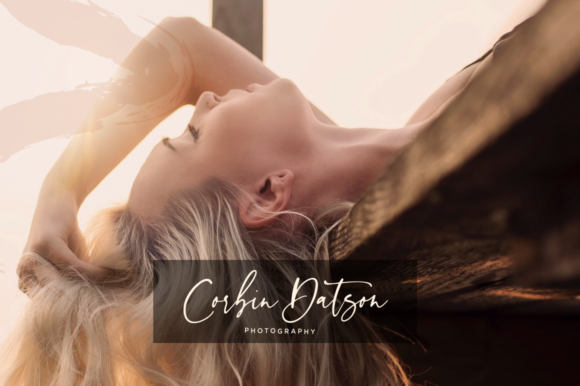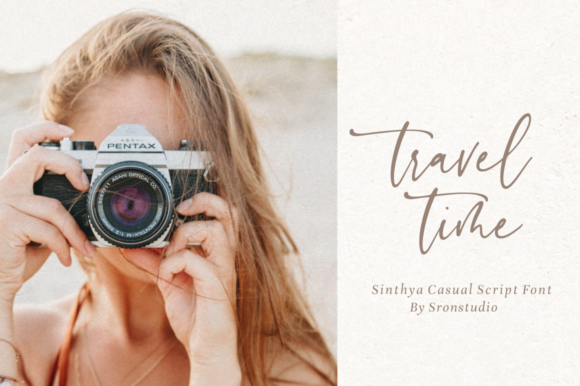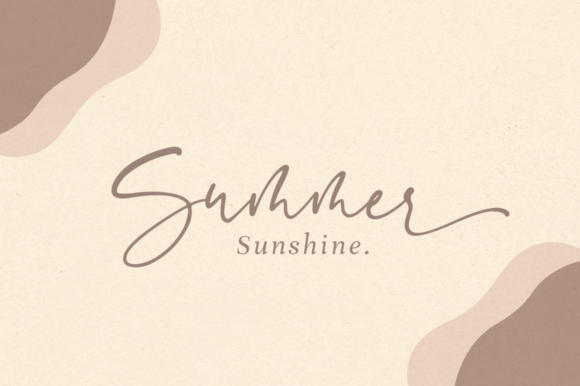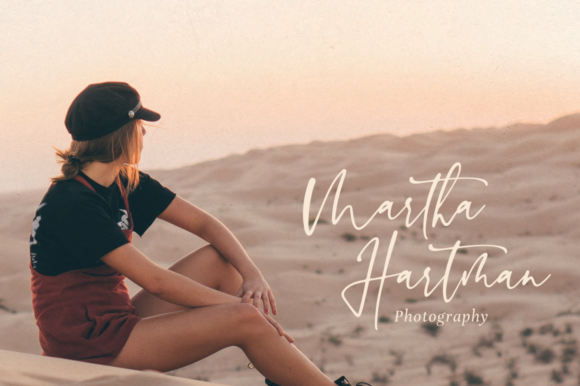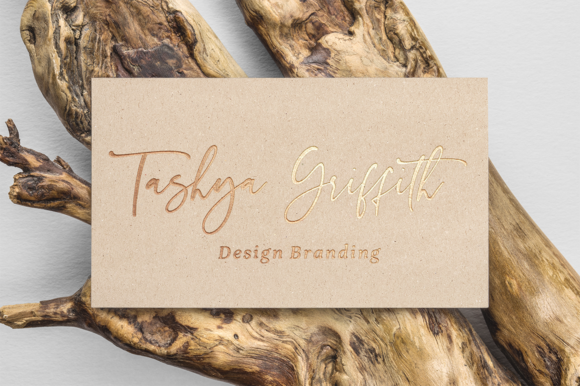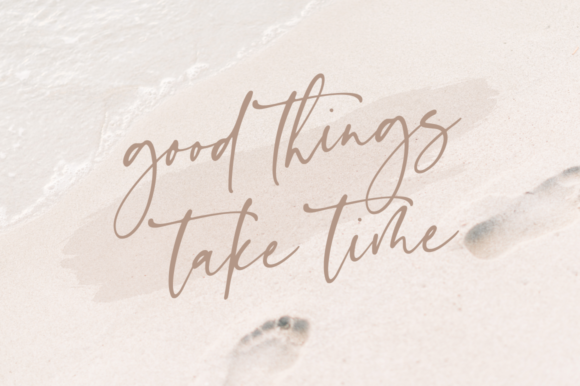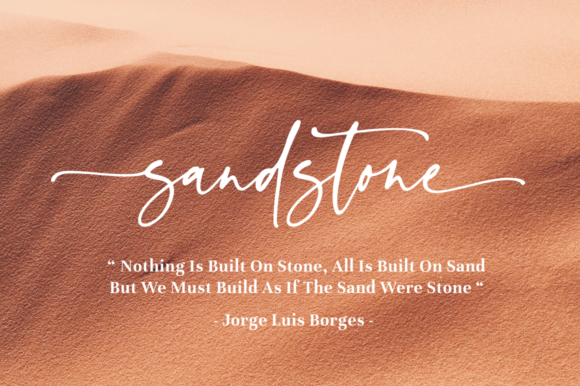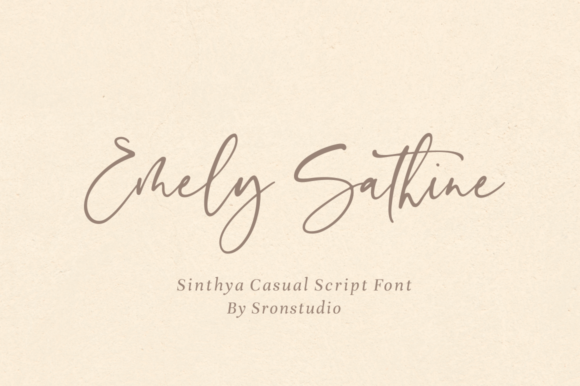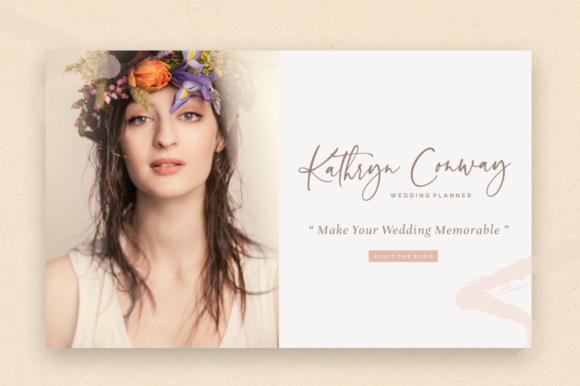
Sinthya Font
About Sinthya Font
Sinthya is a natural handwritten font perfect for many different design products. Use this script to put a signature touch on your design project.